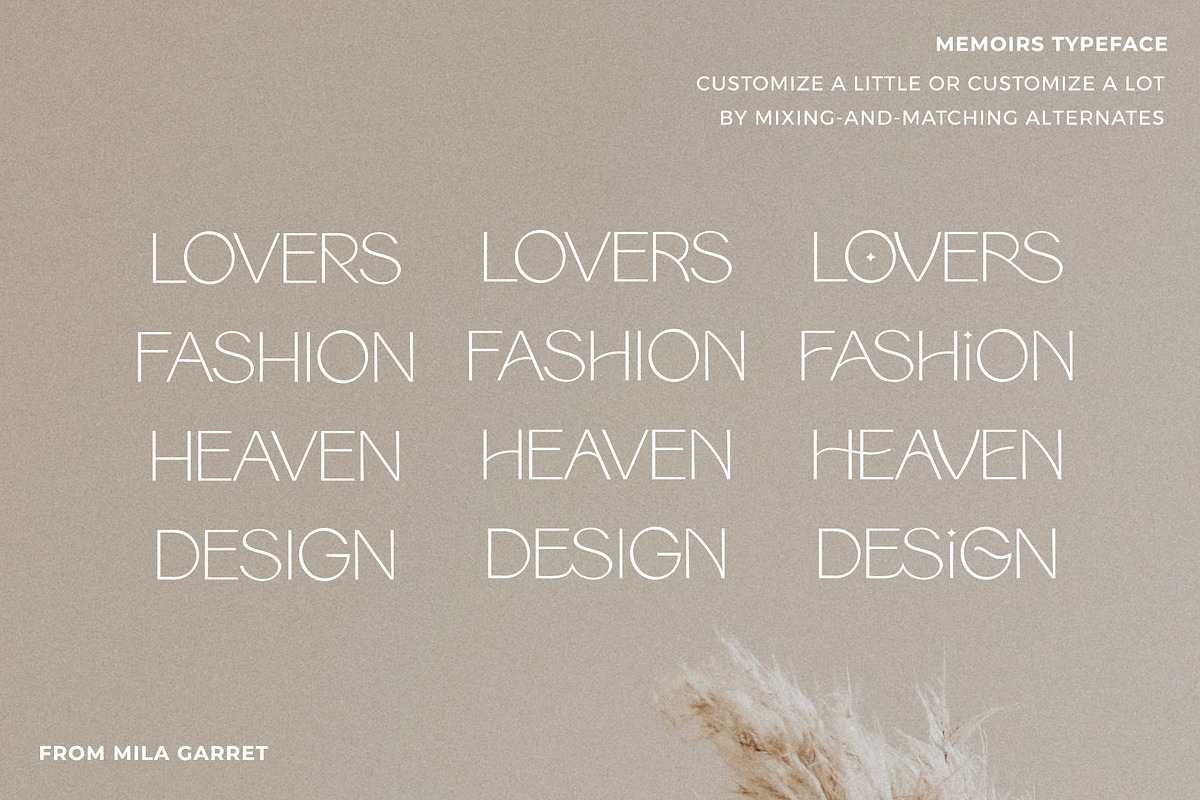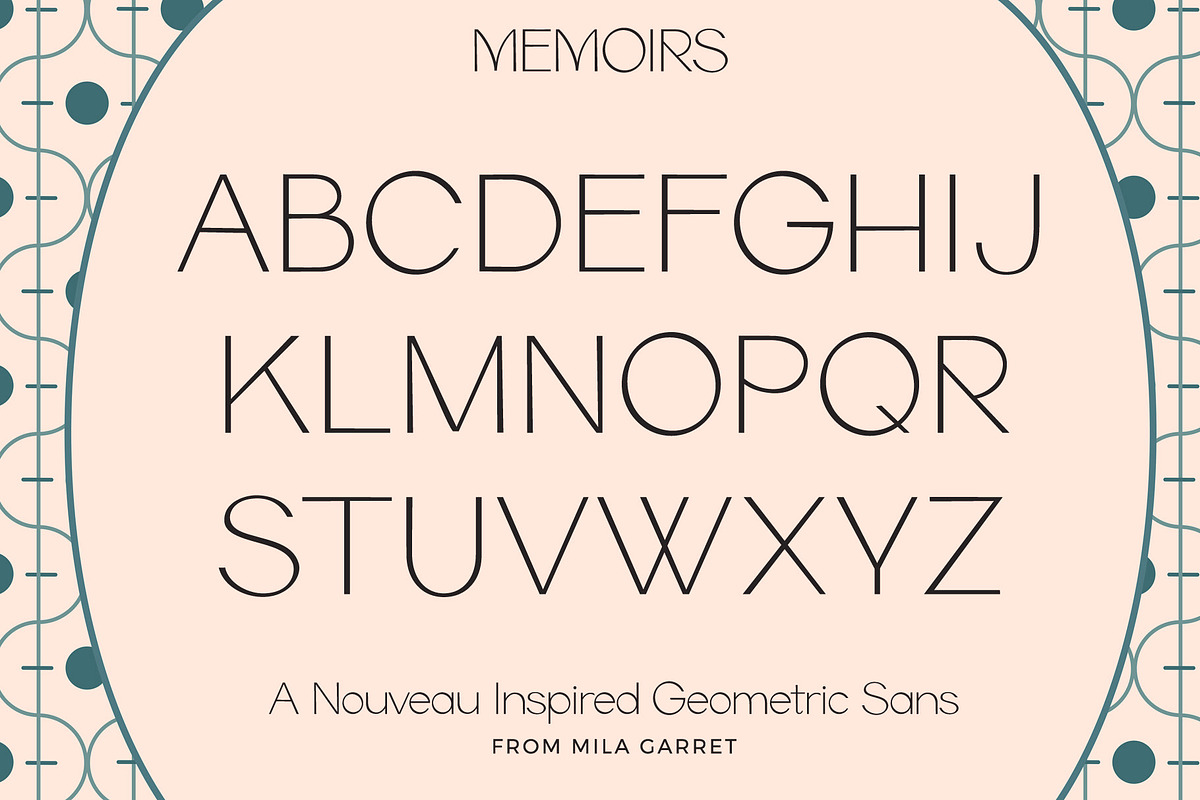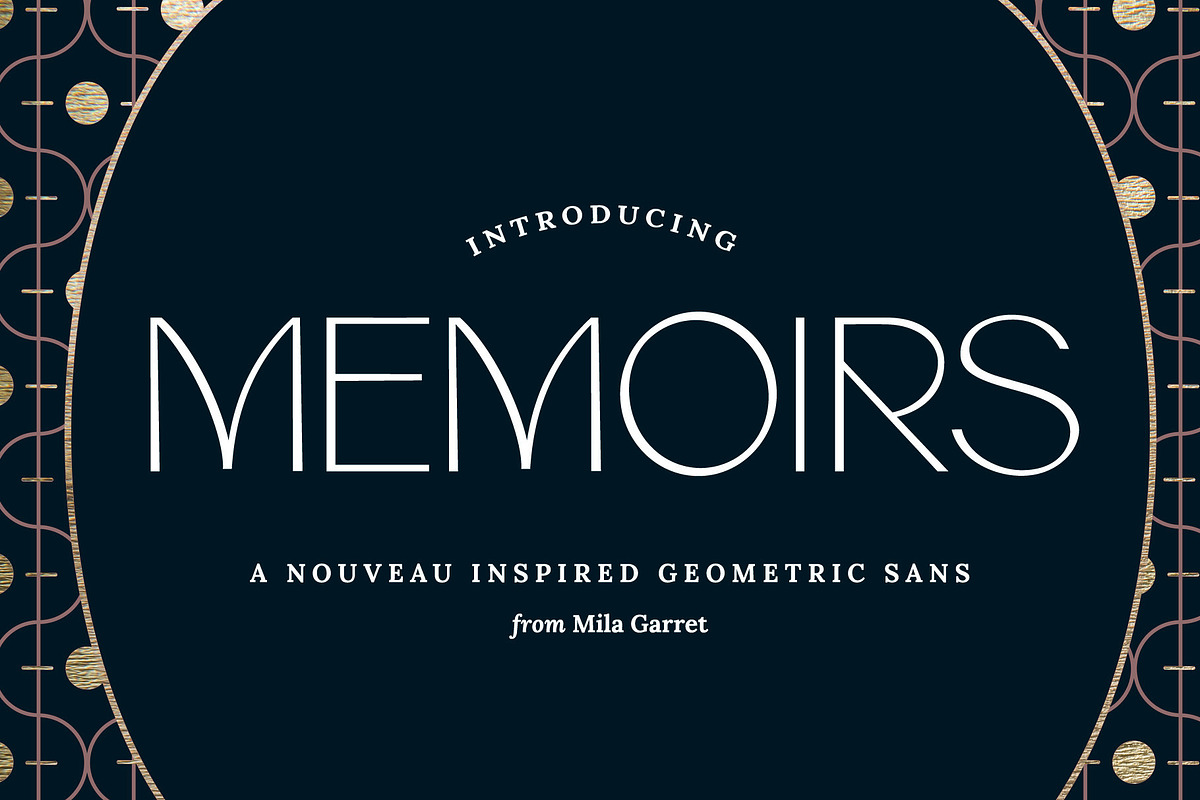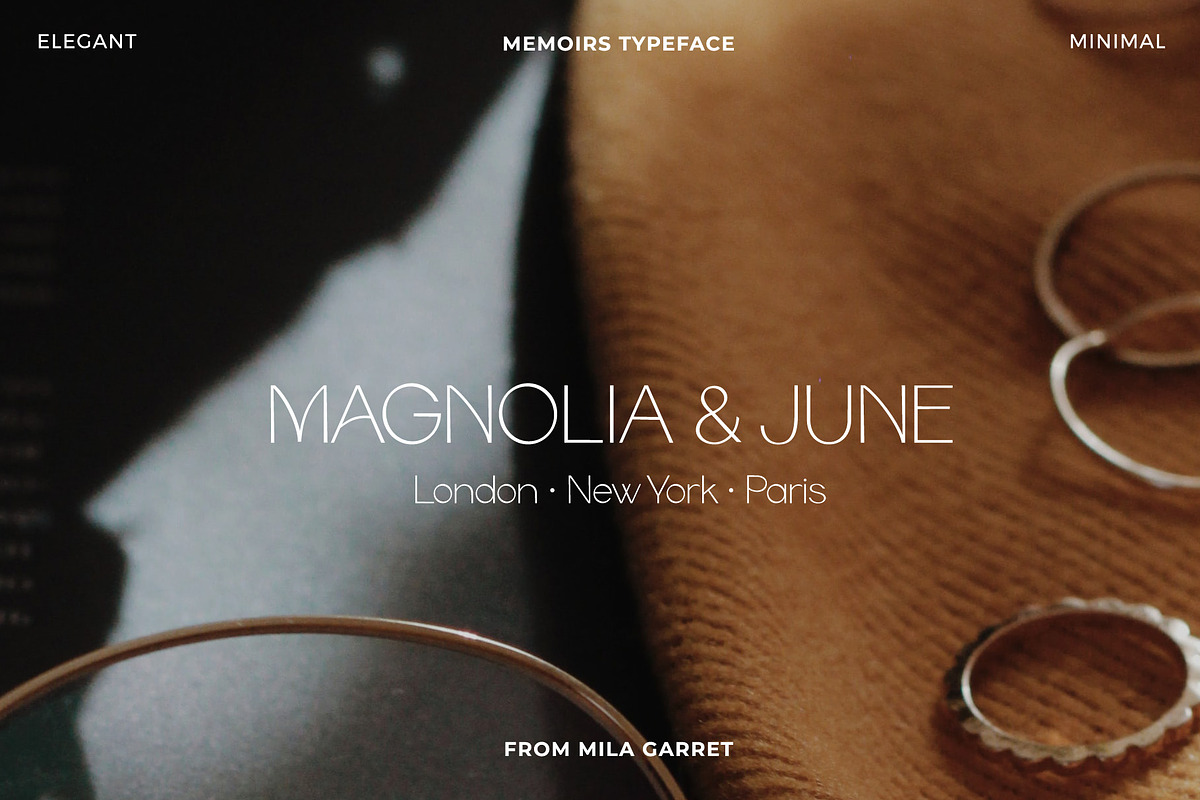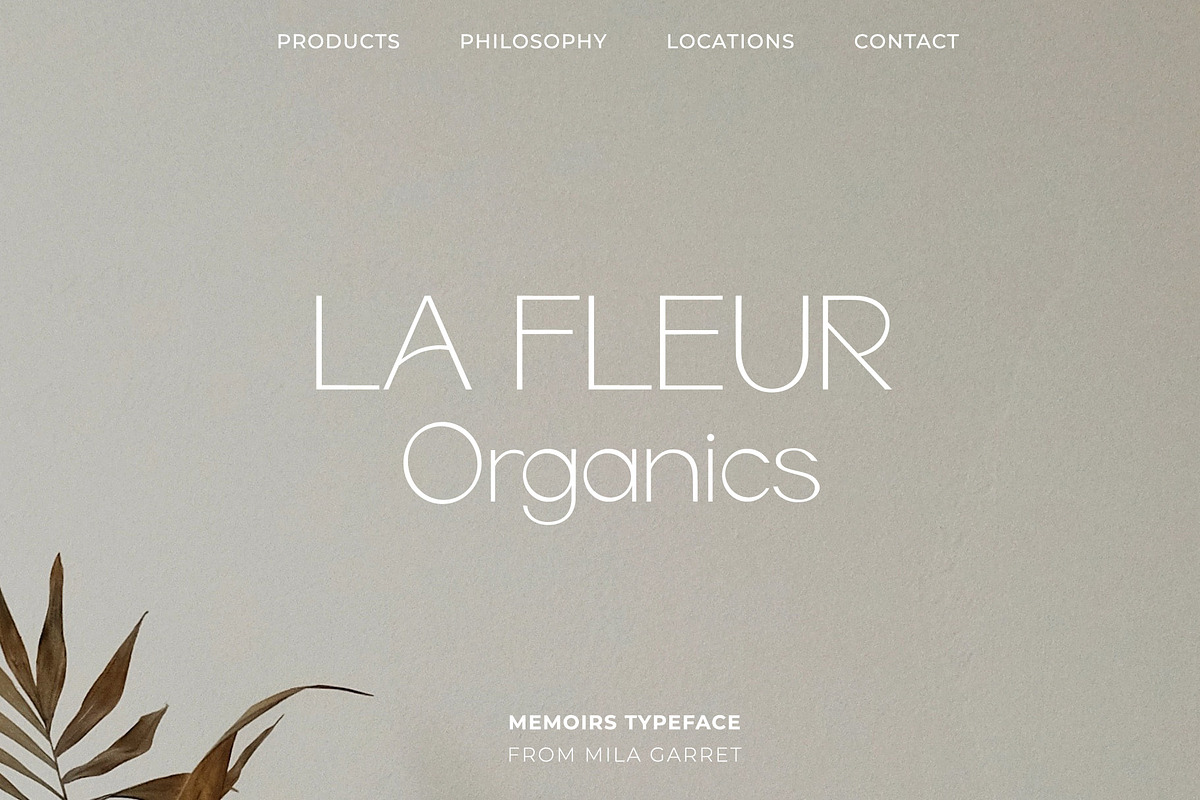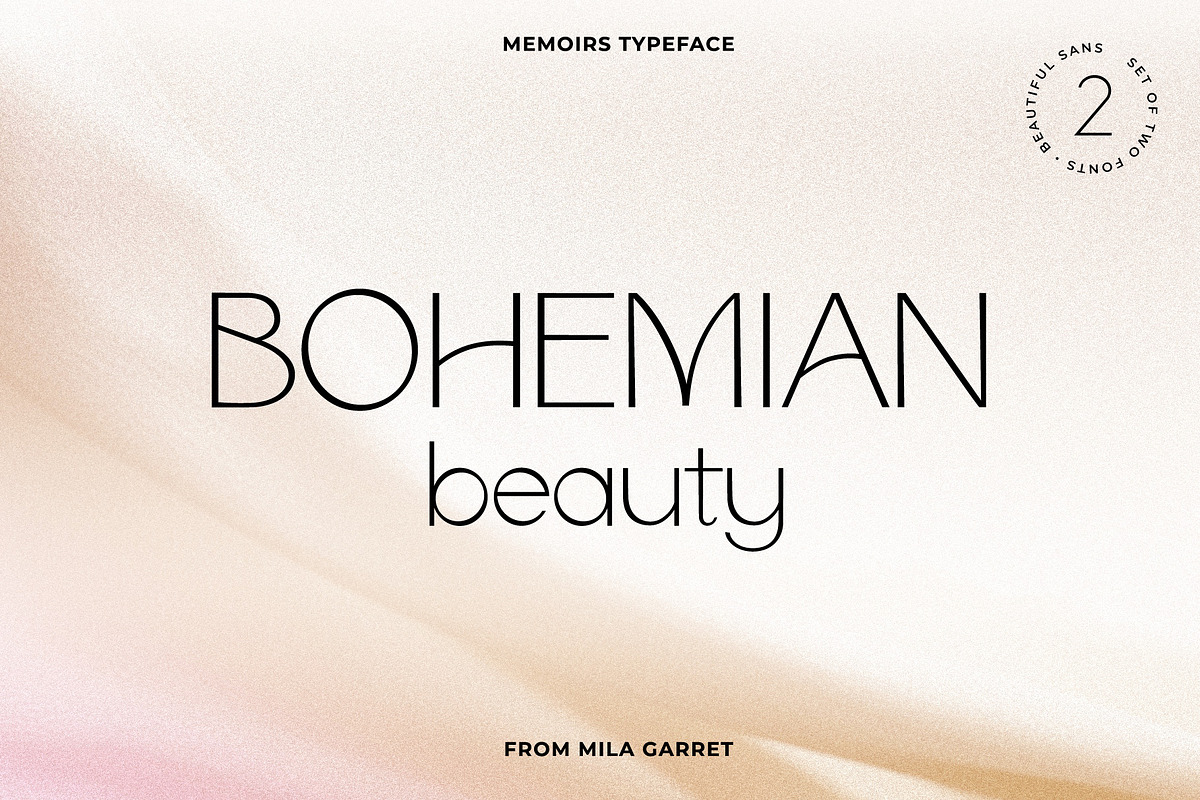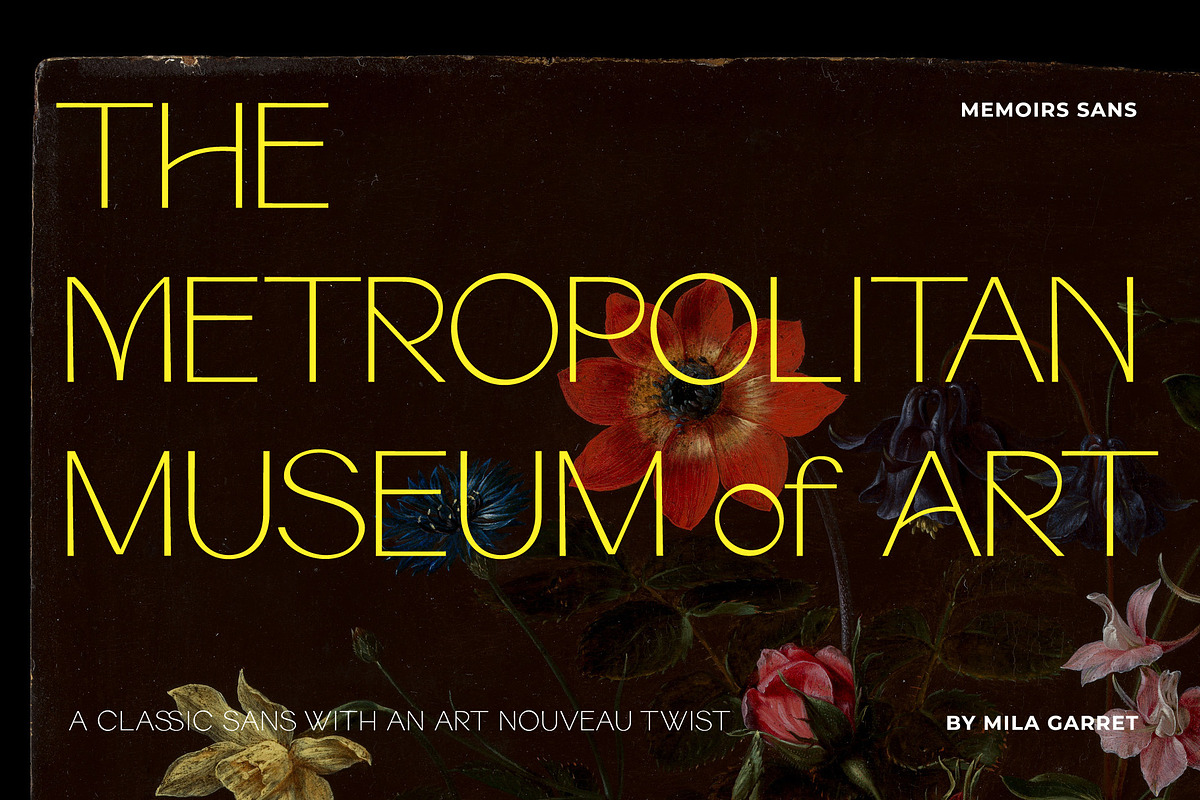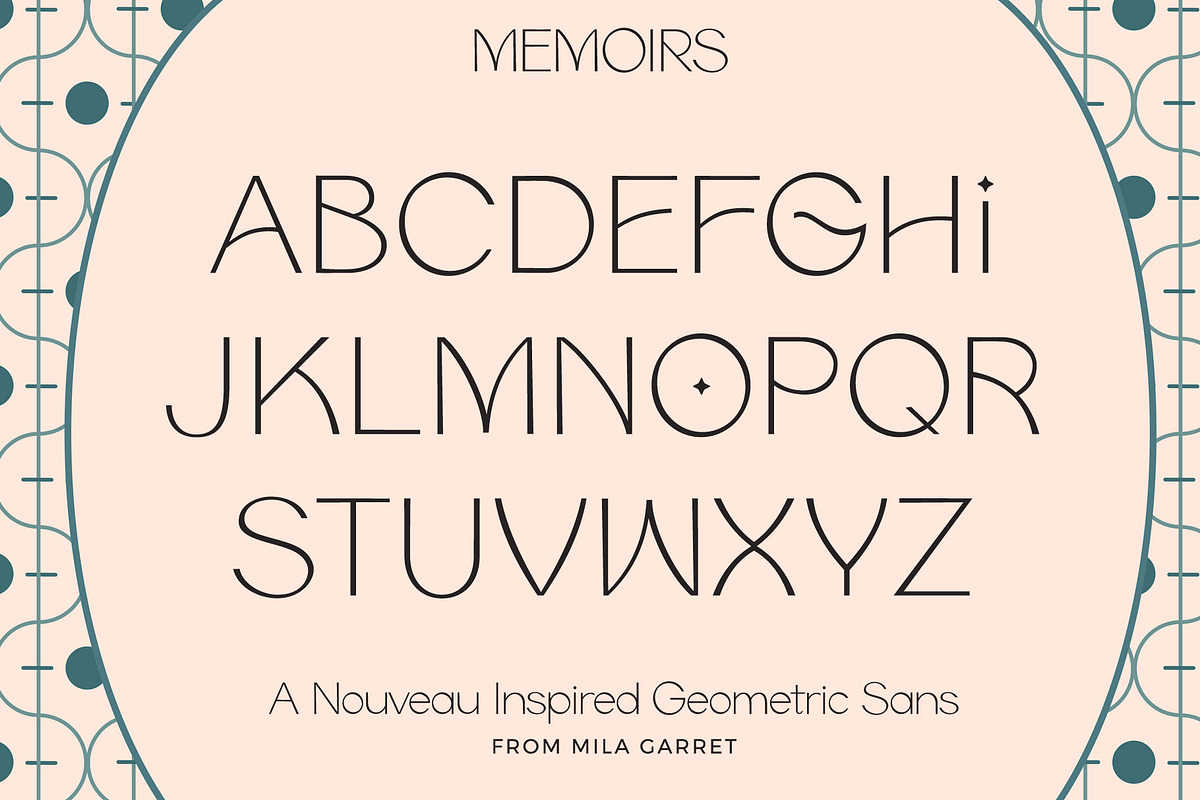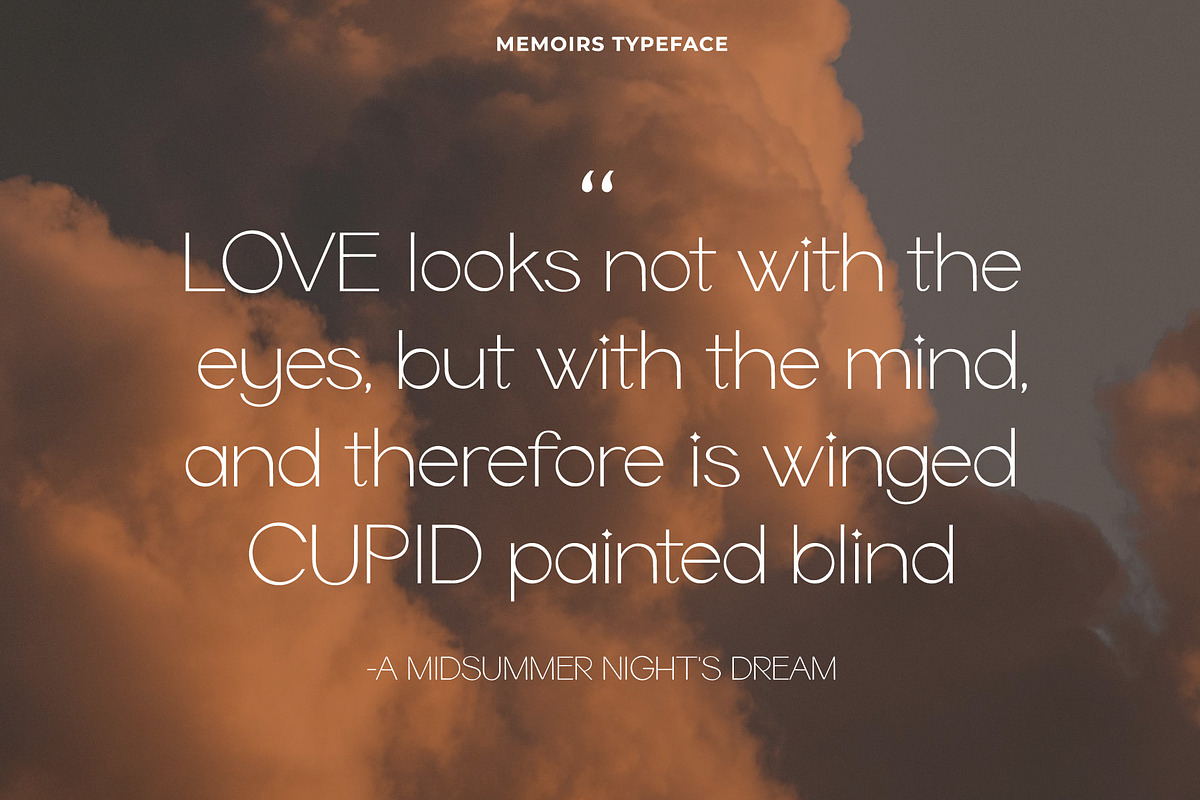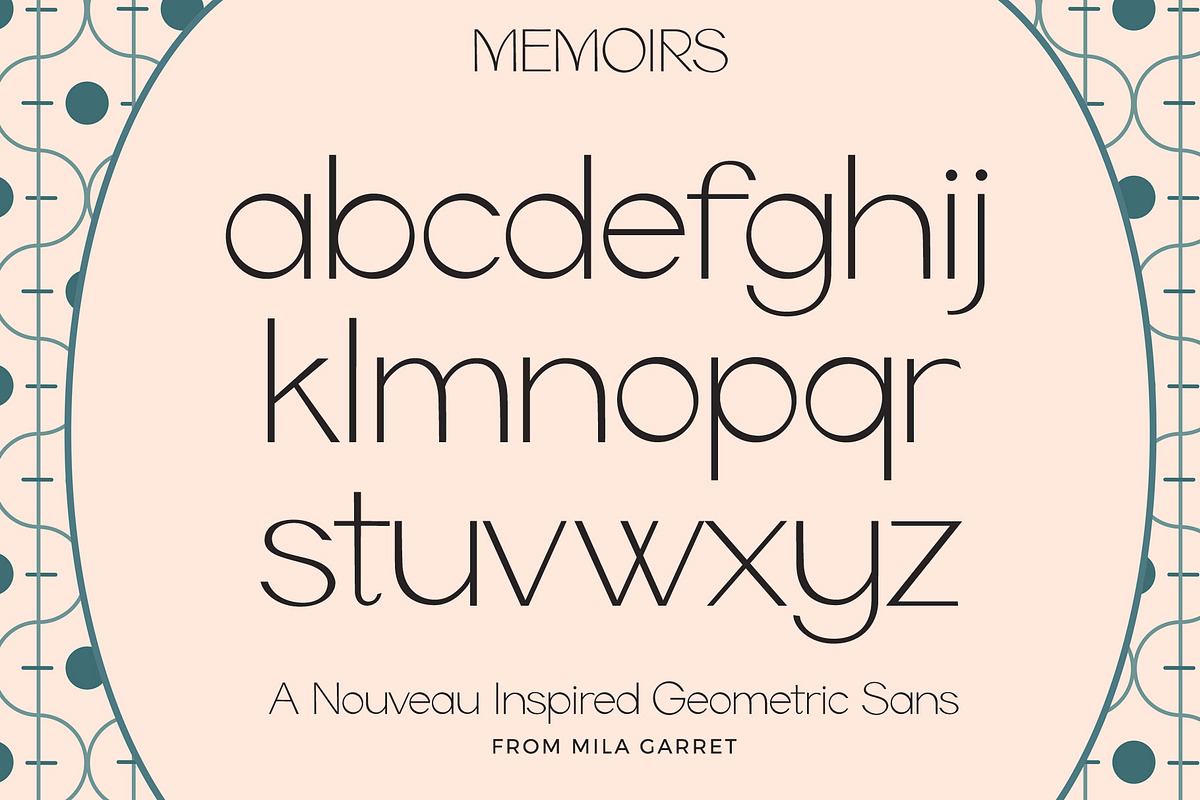
Memoirs Sans Modern Logo Font
Meet MEMOIRS, a modern display sans typeface, with clean minimalist lines and Art Nouveau inspired alternates. MEMOIRS font is ideal for branding and websites, or bringing a luxurious touch to quotes, wedding stationery, social media graphics, and more!
MEMOIRS features alternate capitals that add character and uniqueness to wordmarks and display headlines - swap out capital letters to go from serious and minimalist, to vintage and stylish, to quirky and playful.
Memoirs Font Features
- Standard alphabet and punctuation
- Alternates and ligatures
- Multilingual Characters (ÁÂÄÀÅÃÆÇÉÊËÈÍÎÏÌÑÓÔÖÒØÕŒÚÛÜÙÝŸ áâäàåãæçéêëèíîïìñóôöòøõœßúûüùýÿŠšŽž€£¥ªº)
- Bold version